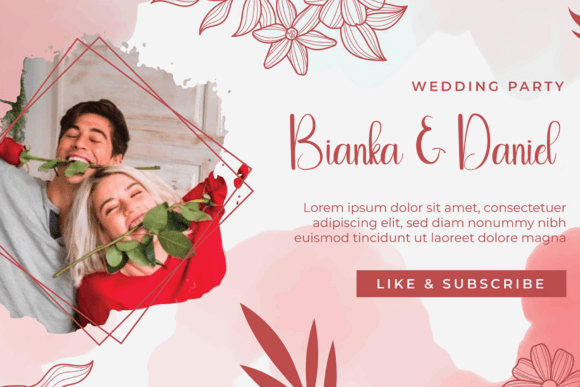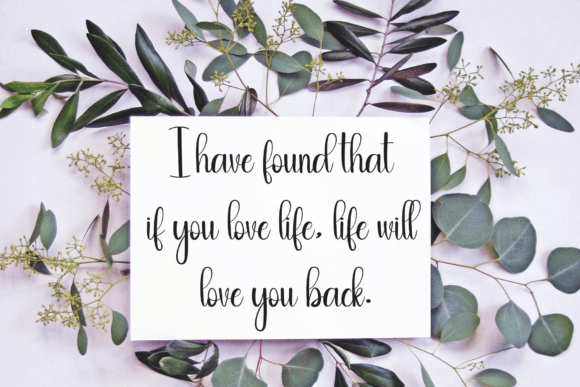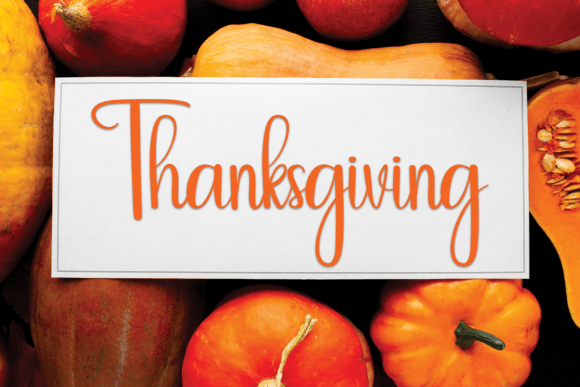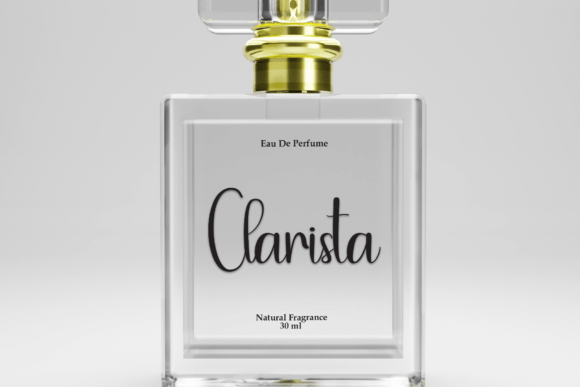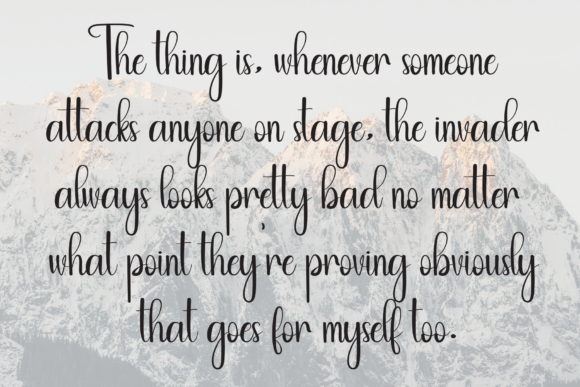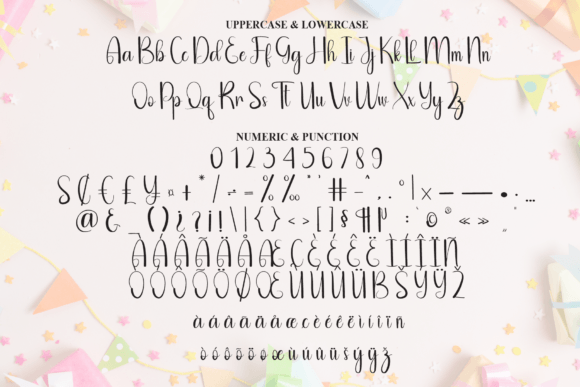
Introducing Birthday Font: The Perfect Handwritten Display Font for Your Celebratory Designs
Are you looking for a font that can add a touch of charm and friendliness to your designs? Look no further than Birthday Font, a delightful and approachable handwritten display font that’s perfect for personalizing wedding invitations, greeting cards, and more. With its enchanting and playful vibe, this font is sure to jazz up any design that needs a little extra something special.
The Characteristics of Birthday Font
Birthday Font is a beautifully crafted handwritten display font that exudes a sense of warmth and approachability. Its unique and whimsical design makes it perfect for a variety of design applications, from wedding invitations and greeting cards to social media graphics and more. With its flowing lines and delicate curves, this font is sure to add a touch of elegance and sophistication to any design.
Why Choose Birthday Font?
So why choose Birthday Font for your next design project? Here are just a few reasons why this font stands out from the rest:
- Delightful and Approachable: Birthday Font has a friendly and approachable vibe that’s perfect for creating designs that feel personal and inviting.
- Handwritten with Love: This font is carefully crafted to mimic the look and feel of handwritten text, adding a touch of warmth and personality to any design.
- Perfect for Celebratory Designs: Whether you’re designing wedding invitations, birthday cards, or other celebratory materials, Birthday Font is the perfect choice.
- Highly Versatile: This font can be used for a wide range of design applications, from digital graphics to print materials.
How to Use Birthday Font in Your Designs
Using Birthday Font in your designs is easy. Here are a few tips to get you started:
- Pair it with Other Fonts: Birthday Font pairs perfectly with a variety of other fonts, from bold and modern to delicate and elegant.
- Experiment with Colors: This font looks great in a wide range of colors, from bright and bold to soft and pastel.
- Add Decorations: Consider adding decorations, such as flowers or other embellishments, to give your designs an extra special touch.
The Benefits of Using Birthday Font
Using Birthday Font in your designs can have a number of benefits, including:
- Adding a Personal Touch: This font has a warm and personal feel that’s perfect for creating designs that feel special and unique.
- Standing Out from the Crowd: With its unique and whimsical design, Birthday Font is sure to help your designs stand out from the crowd.
- Creating a Consistent Look: This font can be used to create a consistent look across a wide range of design applications.
In conclusion, Birthday Font is a delightful and approachable handwritten display font that’s perfect for adding a touch of charm and friendliness to your designs. With its unique and whimsical design, this font is sure to jazz up any design that needs a little extra something special. Whether you’re designing wedding invitations, greeting cards, or other celebratory materials, Birthday Font is the perfect choice. So why wait? Download Birthday Font today and start creating your own beautiful and unique designs.
- Handwritten display font
- Delightful and approachable vibe
- Perfect for celebratory designs
- Highly versatile
- Unique and whimsical design
By incorporating Birthday Font into your designs, you’ll be able to create beautiful and unique materials that are sure to impress. So why wait? Download Birthday Font today and start creating your own stunning designs.